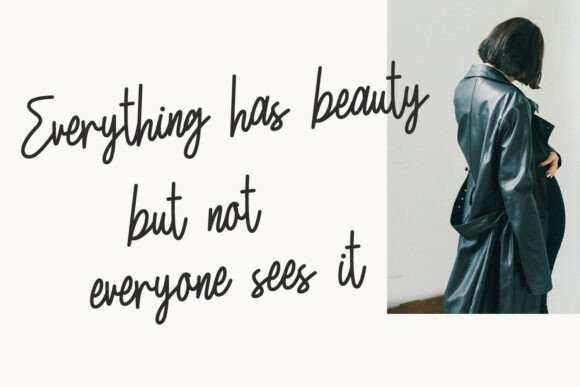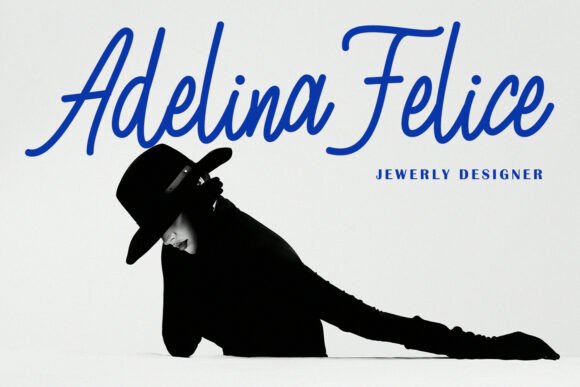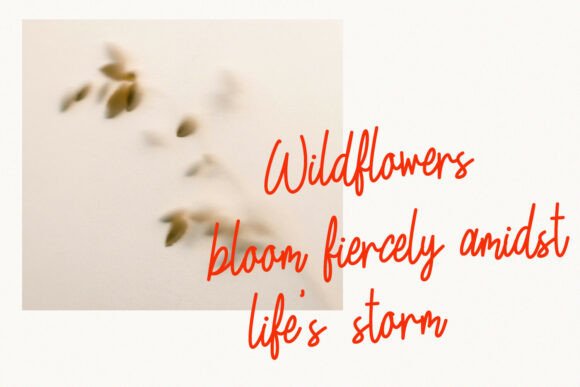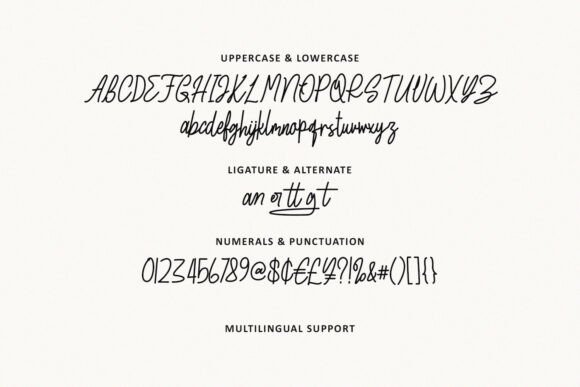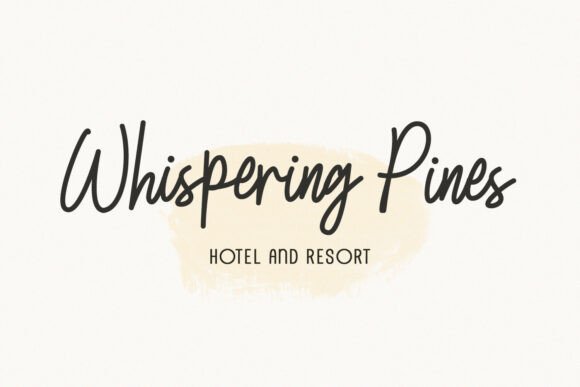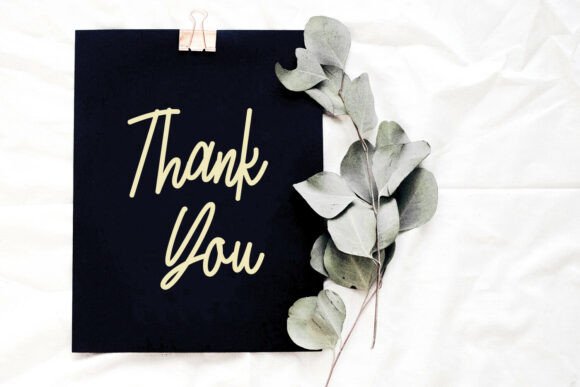
Introduction to Kertang Font
Unleash bold creativity with Kertang, an elegant monoline signature font that radiates confidence and “fun and passionate” energy.
Crafted by Maulana Creative, Kertang features a stylish, upright stance with flowing, interconnected strokes that mimic the effortless flair of a marker pen The standout feature is its dramatic, sweeping underlines and expressive flourishes, making it an ideal choice for high-end branding, fashion photography overlays, and modern signatures.